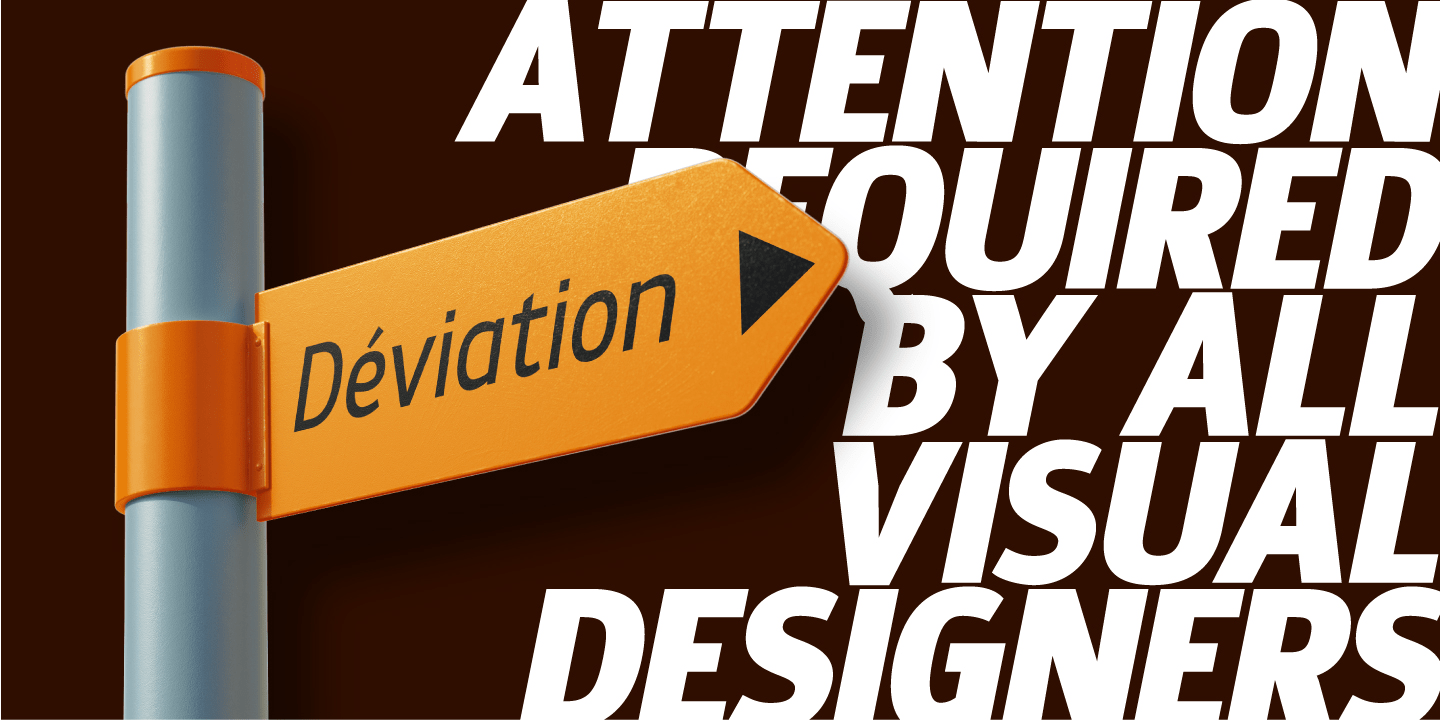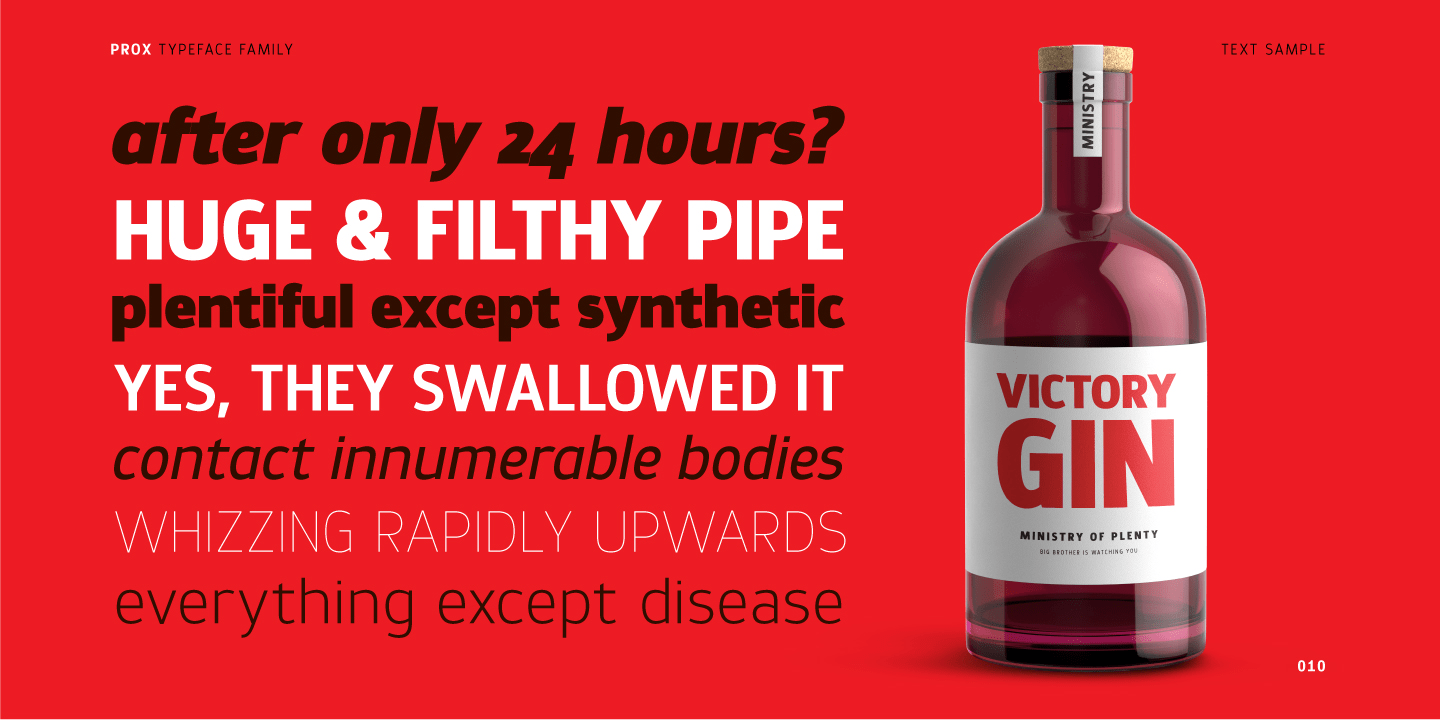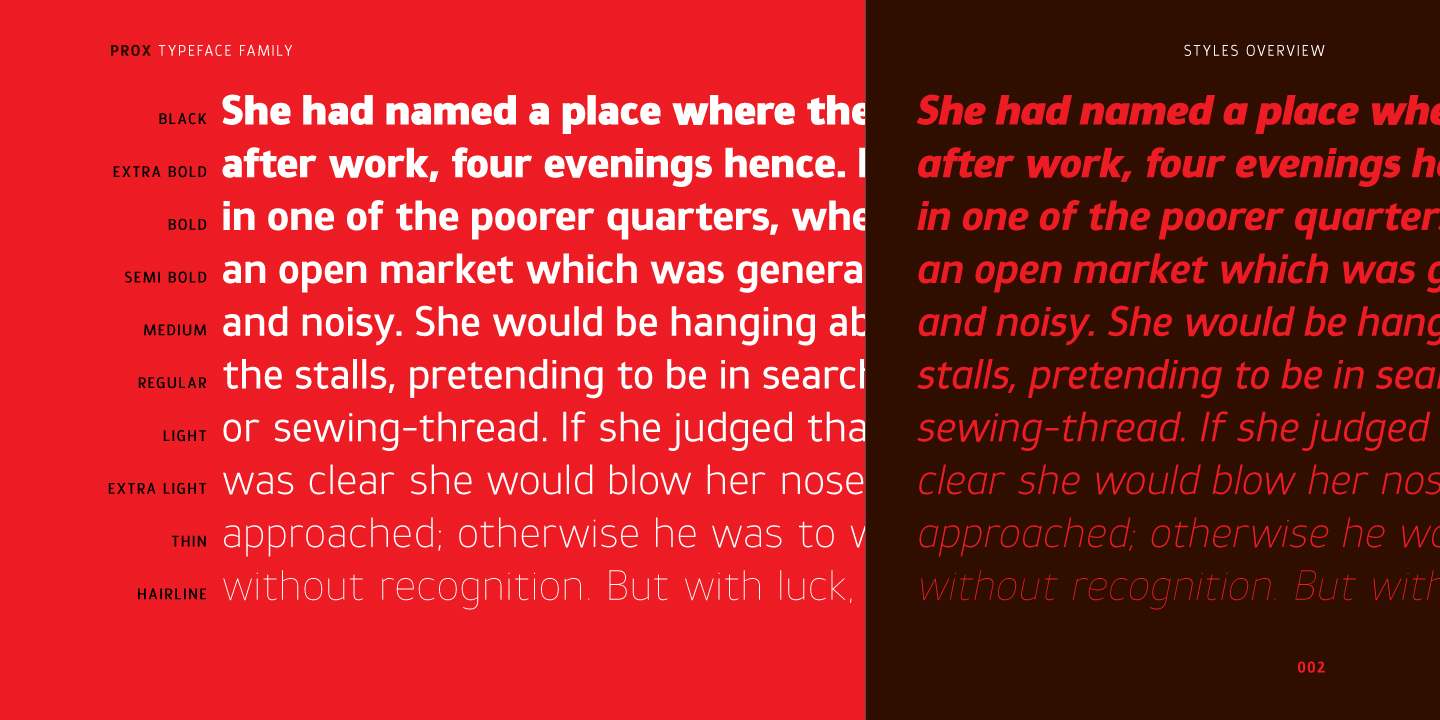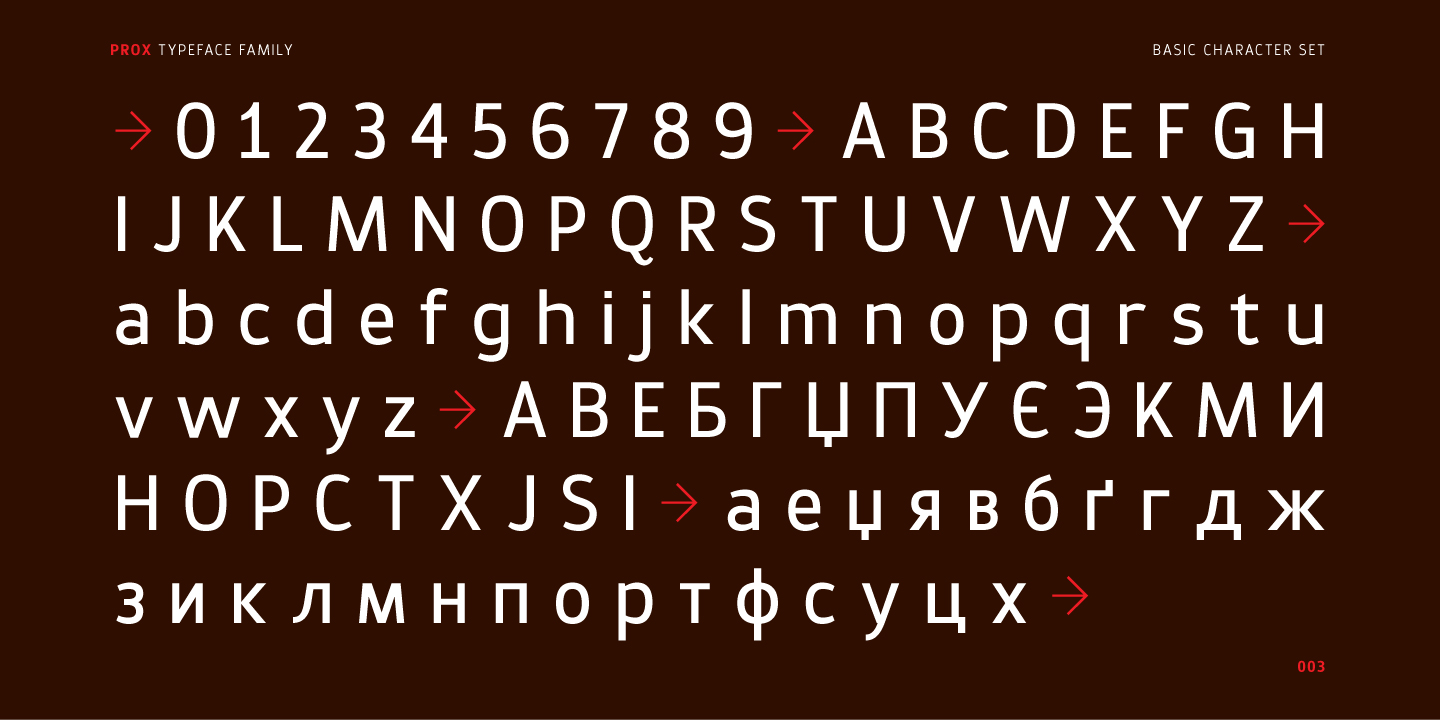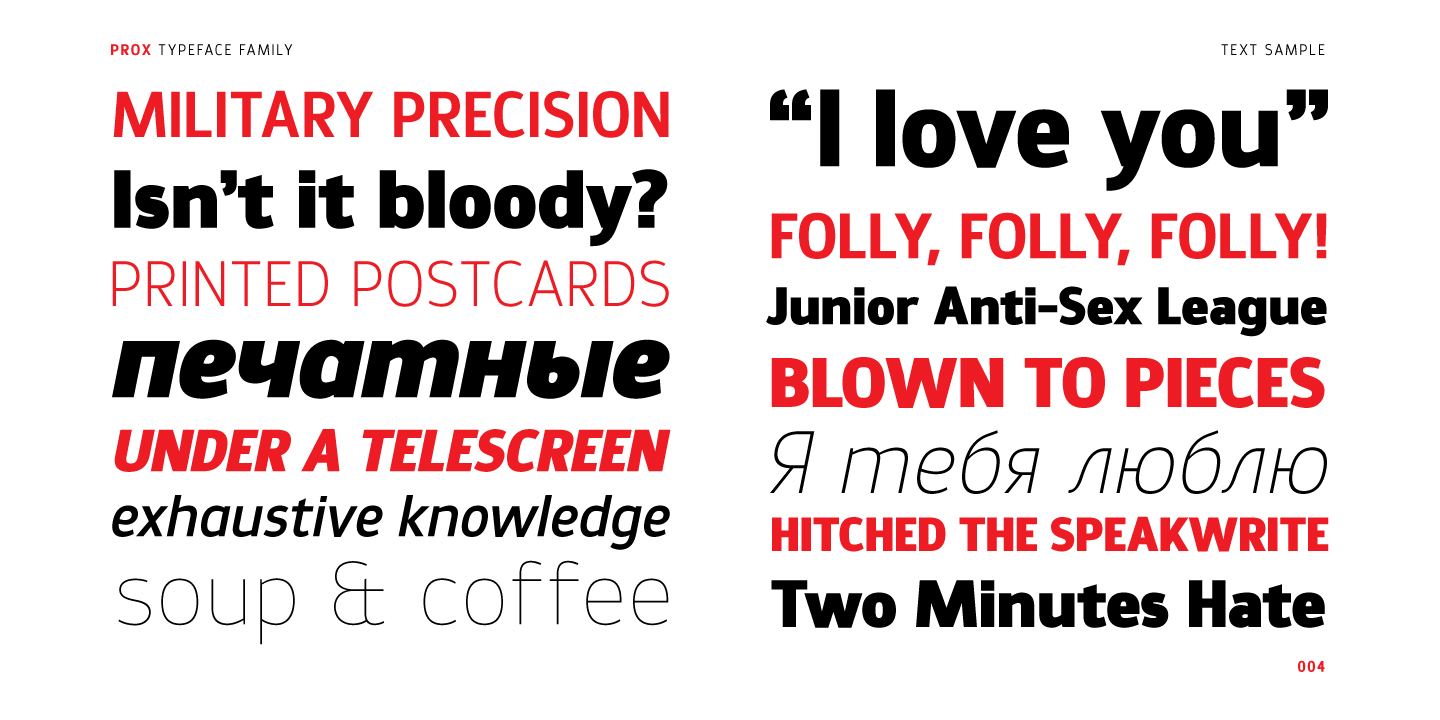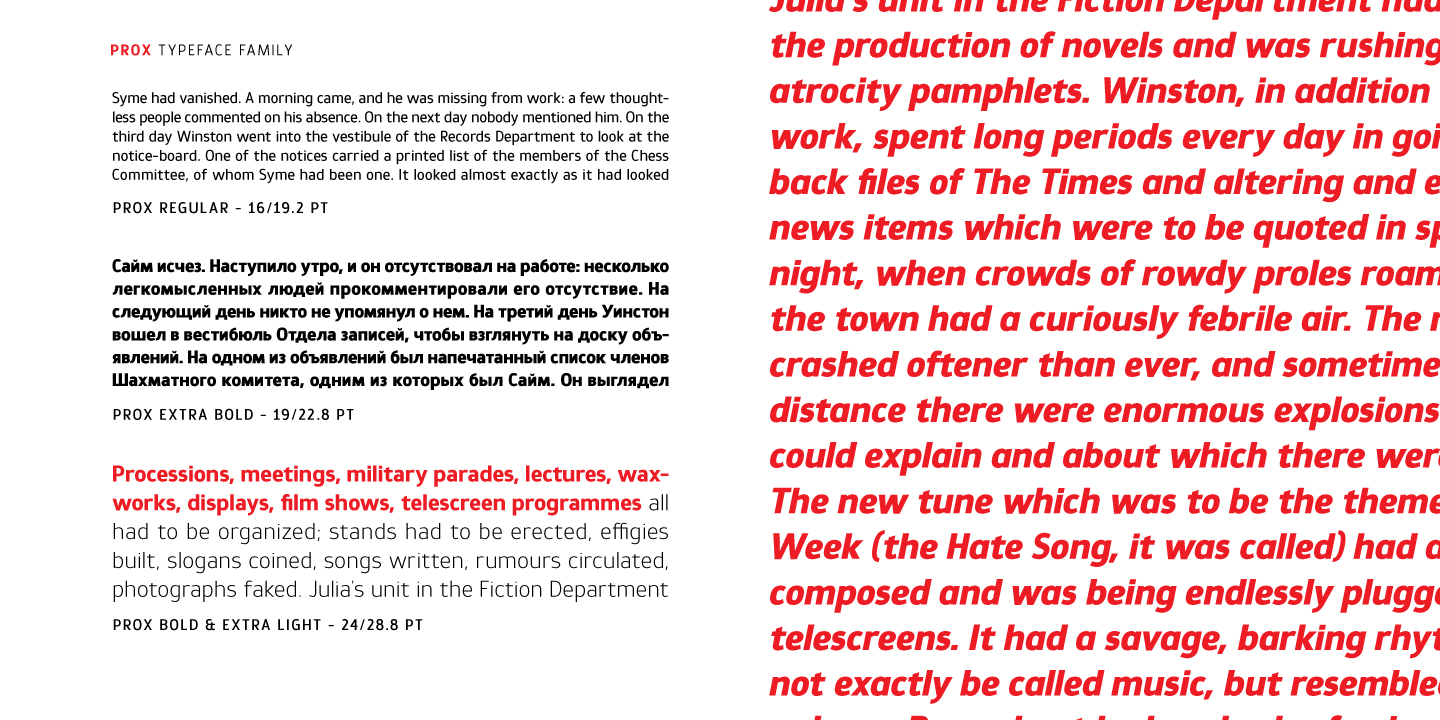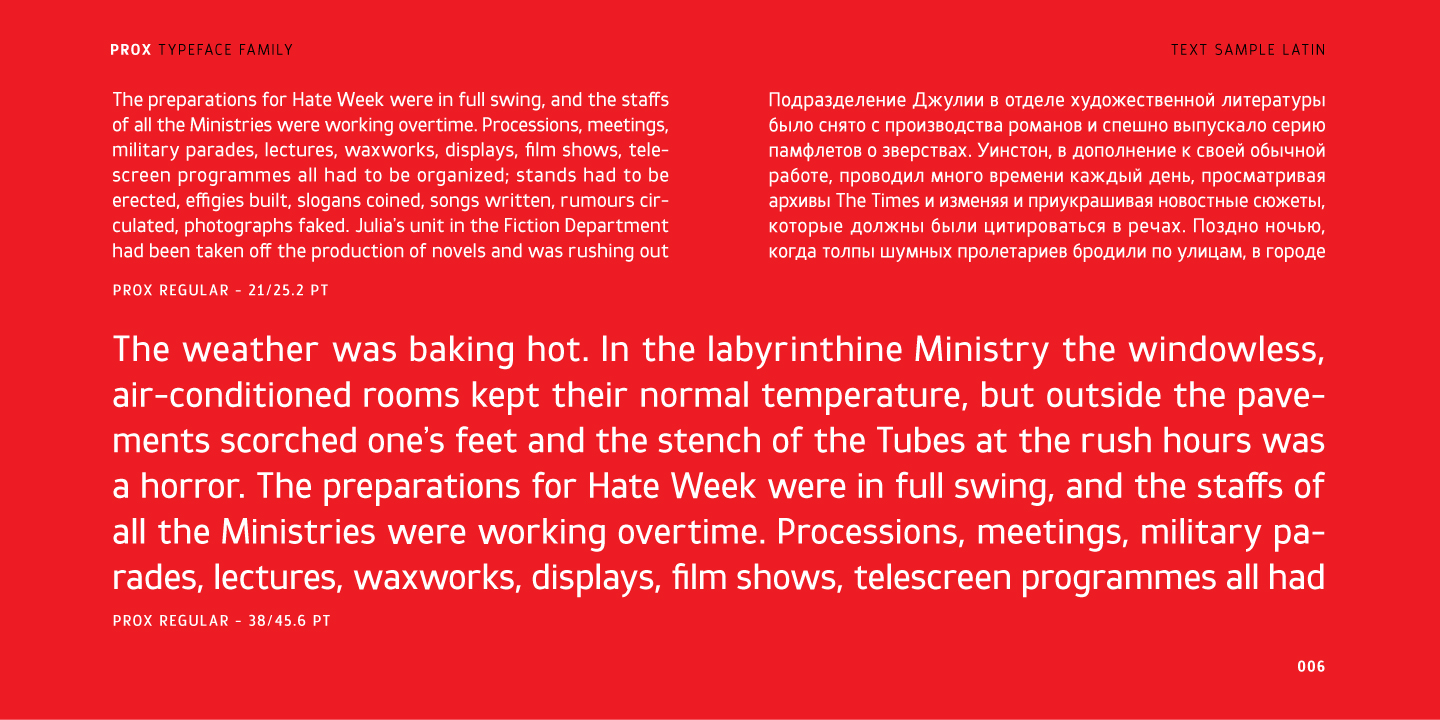
About Prox
Prox is a humanist sans-serif typeface destined for use in all settings and mediums. Conceived as a simple, economical design, this family of twenty styles includes a large character set that covers both the Latin and Cyrillic script. The addition of…